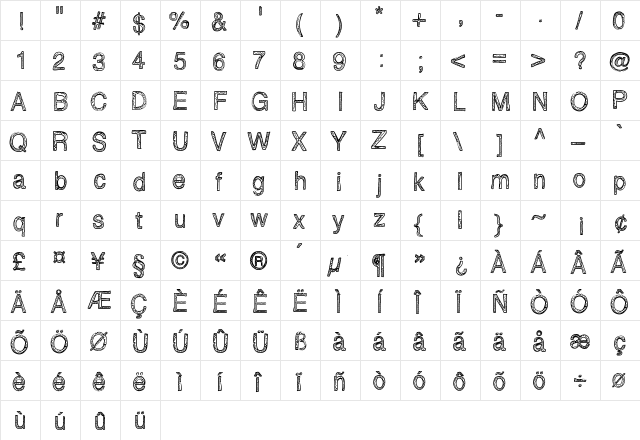
EpicAwesomenessScribblz Medium
Design Context for EpicAwesomenessScribblz Typeface
EpicAwesomenessScribblz takes a measured approach to typography — its balanced proportions and neutral character make it a reliable workhorse for both digital and print work.